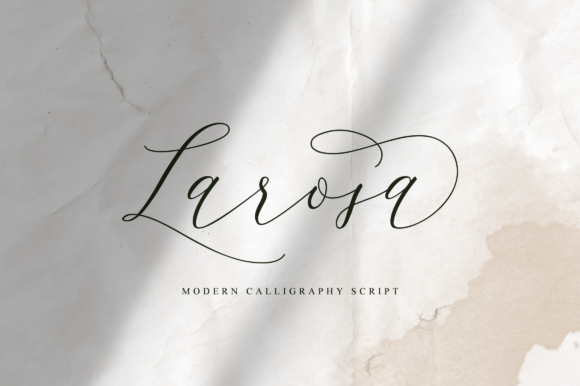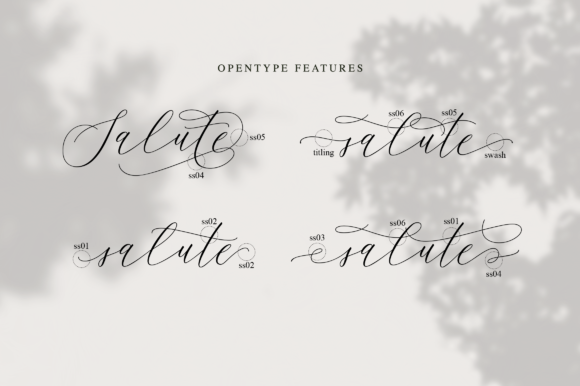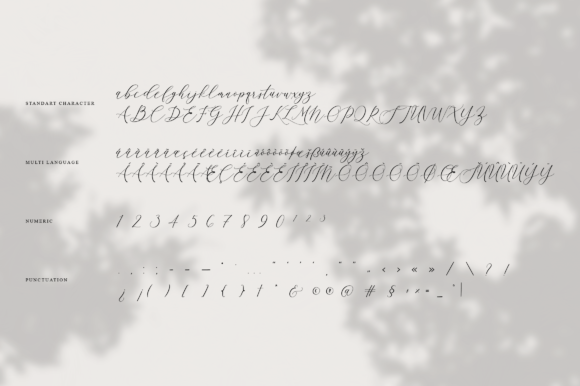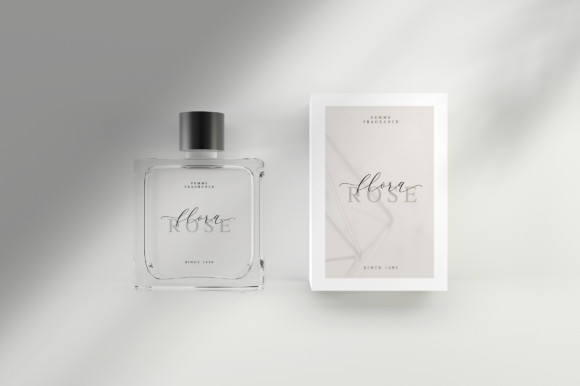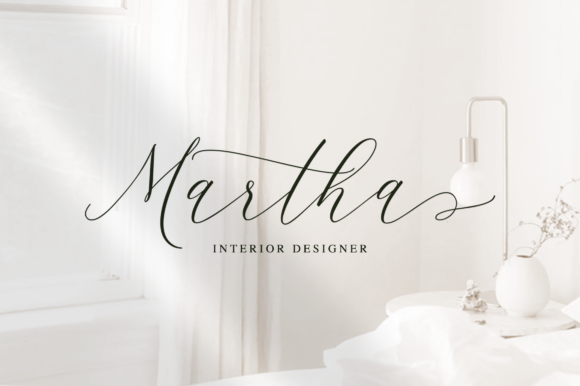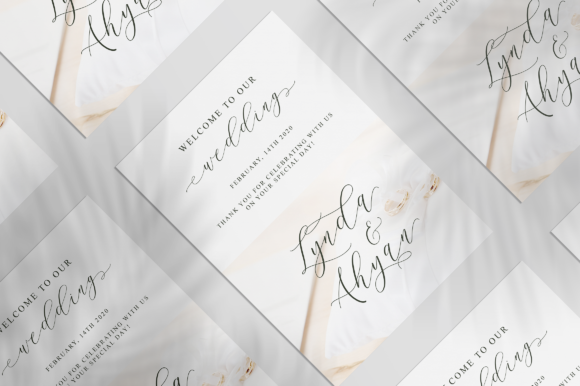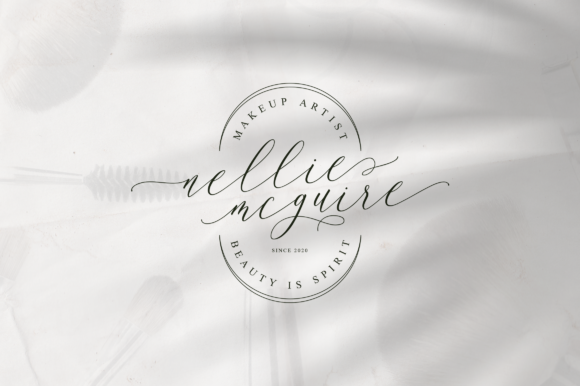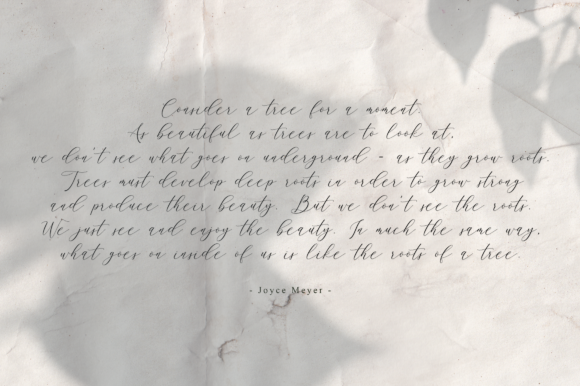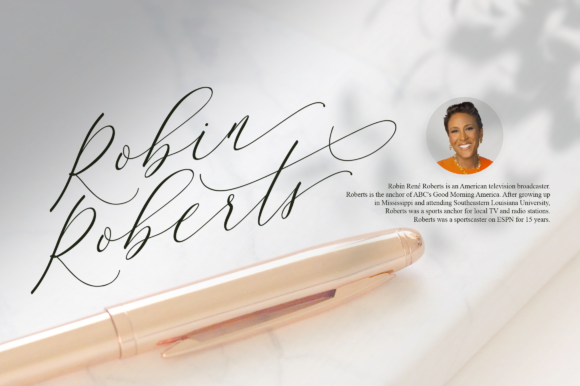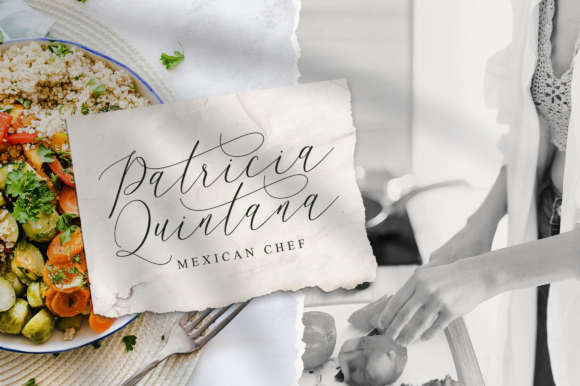
Larosa Font
About Larosa Font
Larosa is an elegant and luxurious modern handwritten font perfect for logo designs, wedding supplies, branding, beauty packaging and more.
Create your clean and stylish design with Larosa!